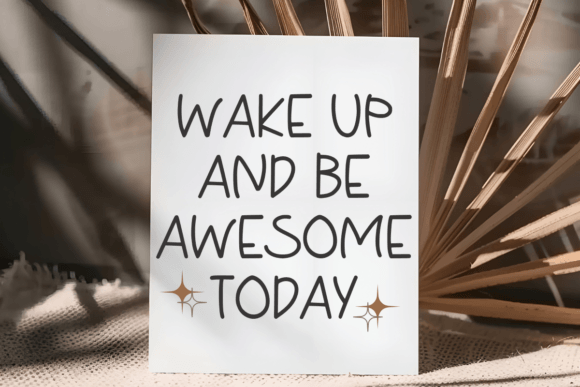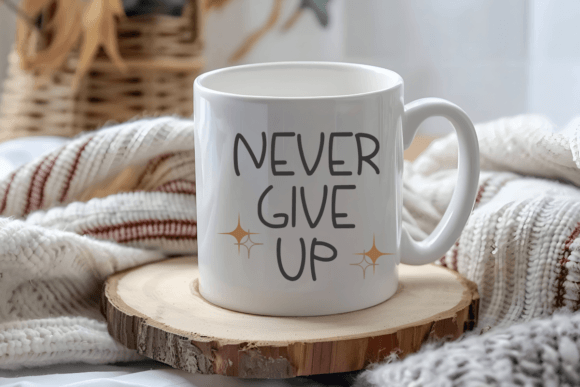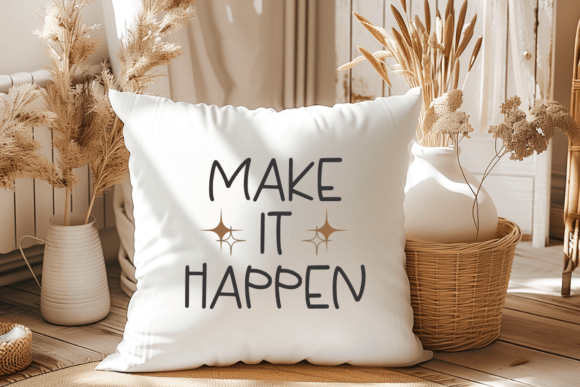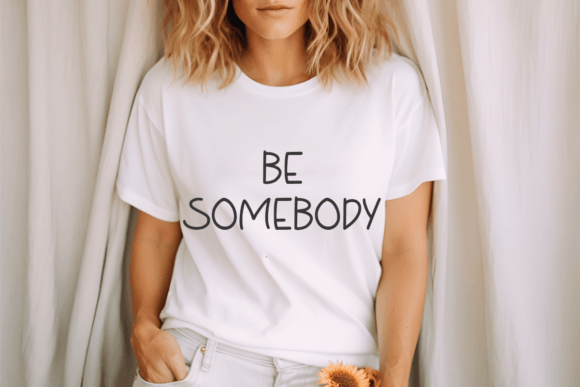
The Egg-stra Special Font: A Deep Dive into Egg Hunting Font
I’ll never forget the time I was working on a whimsical Easter-themed project for a client, and I just couldn’t find the perfect font to bring it all together. The design needed to be playful, yet elegant; fun, yet sophisticated. That’s when I stumbled upon Egg Hunting Font, and let me tell you, it was love at first sight! 💕
Its natural, handwritten style and unique flair made it the perfect fit for my project. And after playing around with it for a while, I knew I had to share my excitement with fellow designers, crafters, and creative hobbyists out there. So, let’s dive into what makes Egg Hunting Font so special!
What I Love About Egg Hunting Font ✨
- ✅ Sweet and Friendly Vibe: Egg Hunting Font has this irresistibly charming and approachable feel to it, making it perfect for a wide range of designs, from Easter-themed crafts to wedding invitations and more!
- ✅ Natural and Unique Style: The font’s handwritten nature gives it a distinct personality that sets it apart from more generic fonts.
- ✅ Highly Versatile: Whether you’re working on a digital project or a print design, Egg Hunting Font adapts beautifully to different contexts and sizes.
- ⚠️ Legibility at Small Sizes: Like many handwritten fonts, Egg Hunting might get a bit tricky to read at very small sizes. It’s best used at larger sizes where its charm can shine.
- ⚠️ Limited Formality: Given its playful nature, Egg Hunting Font might not be the best fit for very formal or corporate designs.
The Story Behind Egg Hunting Font
While the exact origins of Egg Hunting Font might be shrouded in mystery, it’s clear that its designer was on a mission to create a font that embodies warmth, friendliness, and a bit of whimsy. Imagine a designer, sitting in a cozy café, surrounded by Easter decorations and scribbling notes on a napkin – that’s the kind of vibe Egg Hunting Font exudes.
Q: Is Egg Hunting Font suitable for body text?
A: While Egg Hunting Font is beautiful, its readability at smaller sizes might make it less ideal for long body texts. It’s best used for headings or short paragraphs.
Q: Does Egg Hunting Font support OpenType features?
A: Depending on its design, Egg Hunting Font may support OpenType features such as stylistic alternates and glyphs, adding to its versatility.
And there you have it – a comprehensive look at Egg Hunting Font, from its charming design to practical applications across various platforms. Whether you’re a seasoned designer or a creative hobbyist, this font is sure to inspire your next project!